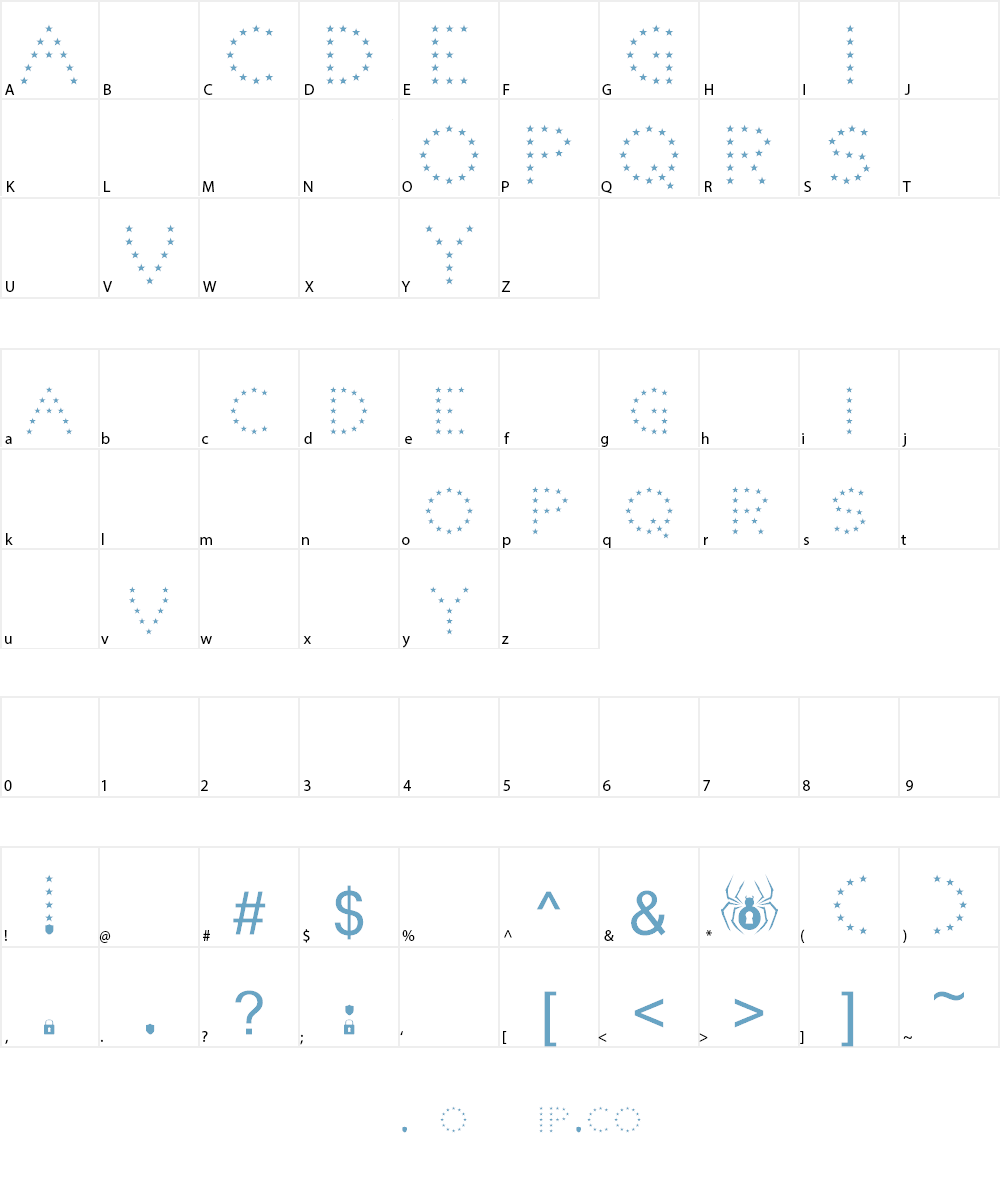
Having recently been impersonated on social media after the Windows Tips Club on the -dotcom after the domain was stolen back in August 2016 I know how important online privacy can be to a business. I had this idea last month when I saw the European Union flag star circle and wondered if I could transform it into a unique typeface GDPRivacy was the result, however I later decided to bifurcate the name to GDPR IVACY prior to this post. The GDPR aims primarily to give control to citizens and residents over their personal data and to simplify the regulatory environment for international business by unifying the regulation within the EU it became enforceable beginning 25 May 2018.This is a sample of 13 lowercase and capitals if you want the fully kerned OTF embeddable commercial version with numbers and accented glyph's please visit my Etsy Store